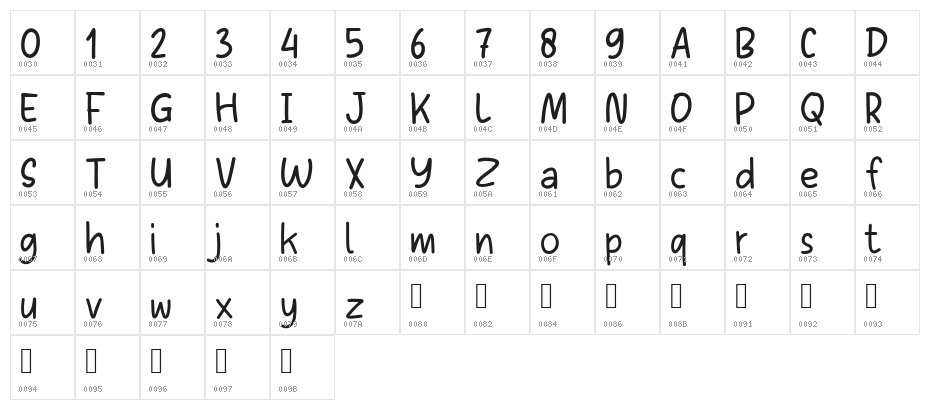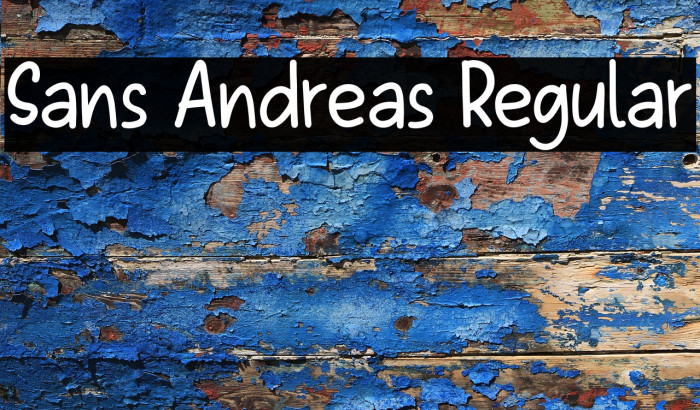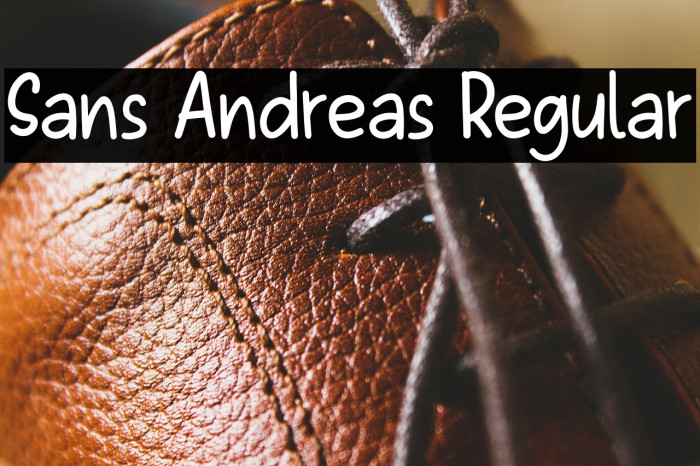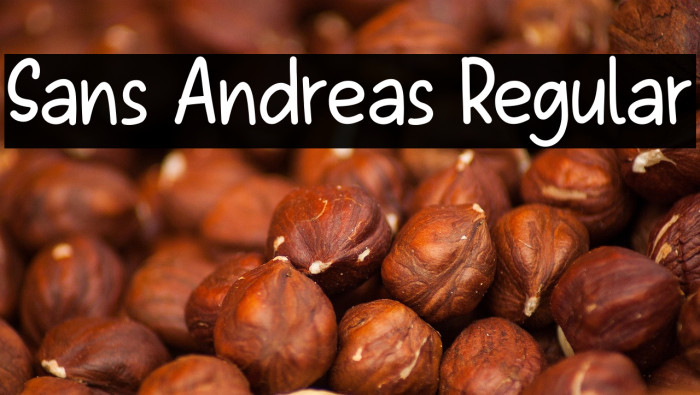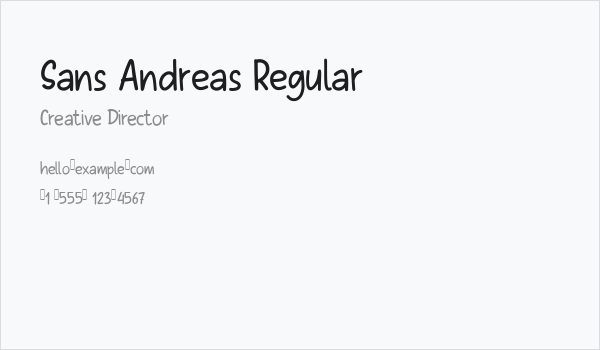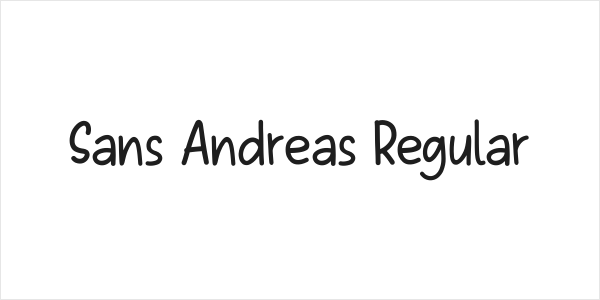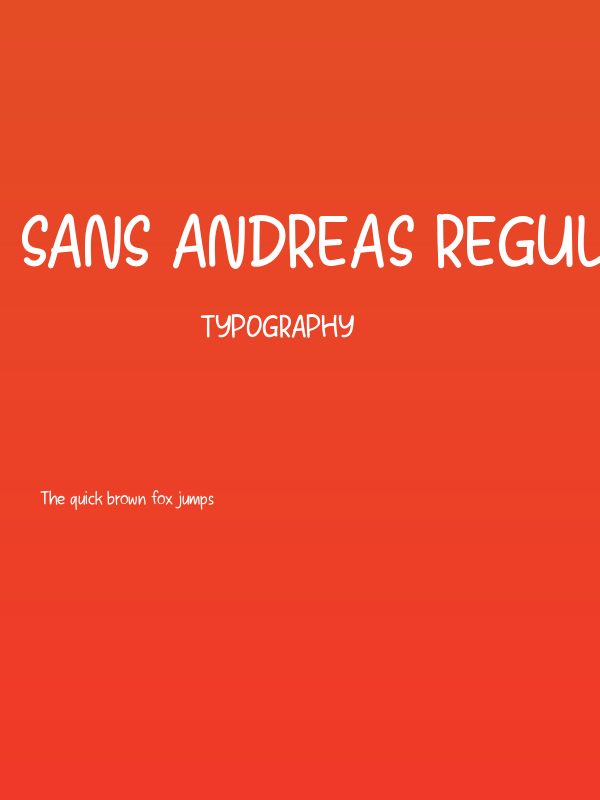
Sans Andreas Regular Font
Sans Andreas Regular Description
This font features a playful and casual style with rounded edges and a handwritten feel. The characters are slightly irregular, adding a touch of whimsy and personality. The uppercase and lowercase letters maintain a consistent flow, while the numerals are bold and easy to read. The font's informal nature makes it suitable for projects that aim to convey friendliness and approachability. Its rounded forms and smooth curves give it a modern yet relaxed appearance, making it versatile for various design needs.
| Use Case | Logos, Headlines, Informal Text |
| Proposed Projects | Ideal for children's books, greeting cards, casual branding, and social media graphics. |